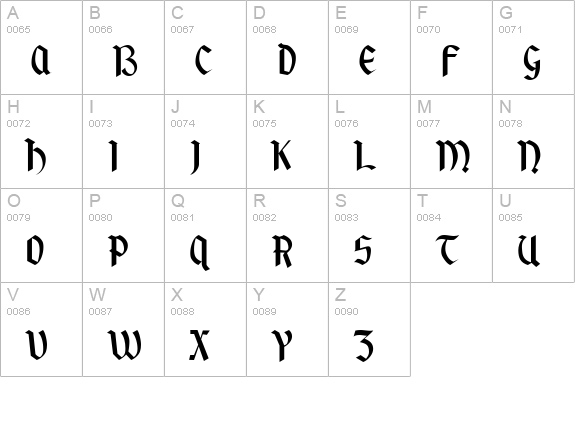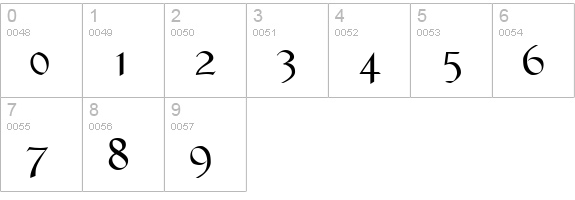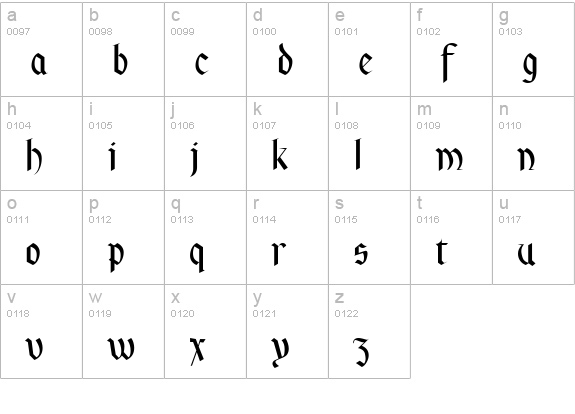
Rankensteen Font Details
Rankensteen font is a beautifully crafted typeface that exudes elegance and sophistication. With its delicate curves and intricate details, this font is perfect for adding a touch of refinement to any design project. Whether you are creating wedding invitations, branding materials, or editorial layouts, Rankensteen font will elevate your work to new heights. What sets Rankensteen font apart is not just its stunning design, but also the fact that it is available for free. Yes, you read that right - this exquisite font can be downloaded at absolutely no cost! FontsMarket.com is proud to offer this incredible font for free, allowing designers and creatives from all walks of life to access and utilize its beauty. Downloading Rankensteen font is a breeze. Simply visit FontsMarket.com, locate the font, and click on the download button. Within seconds, you will have this exceptional font ready to use in your projects. The free availability of Rankensteen font makes it an invaluable resource for both professional designers and hobbyists alike. So why wait? Enhance your designs with the timeless elegance of Rankensteen font and watch as it transforms your work into a visual masterpiece. Download this font today and let your creativity soar to new heights.